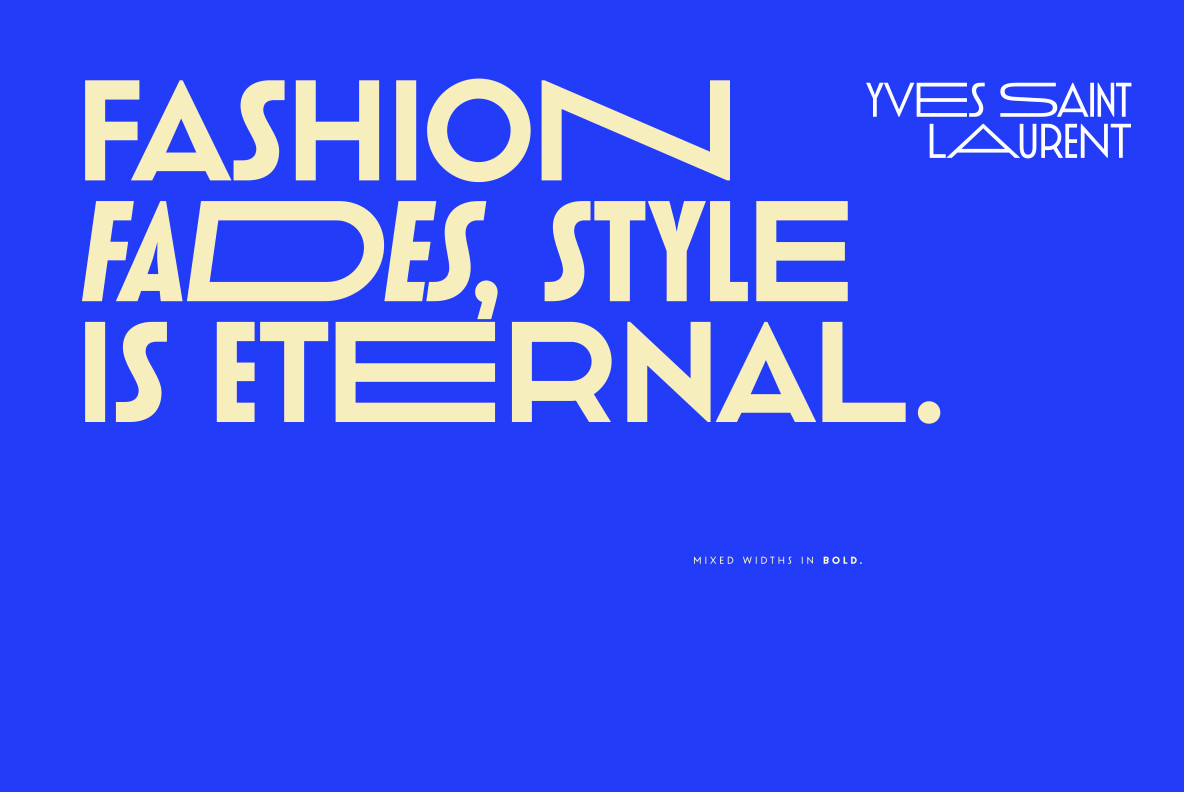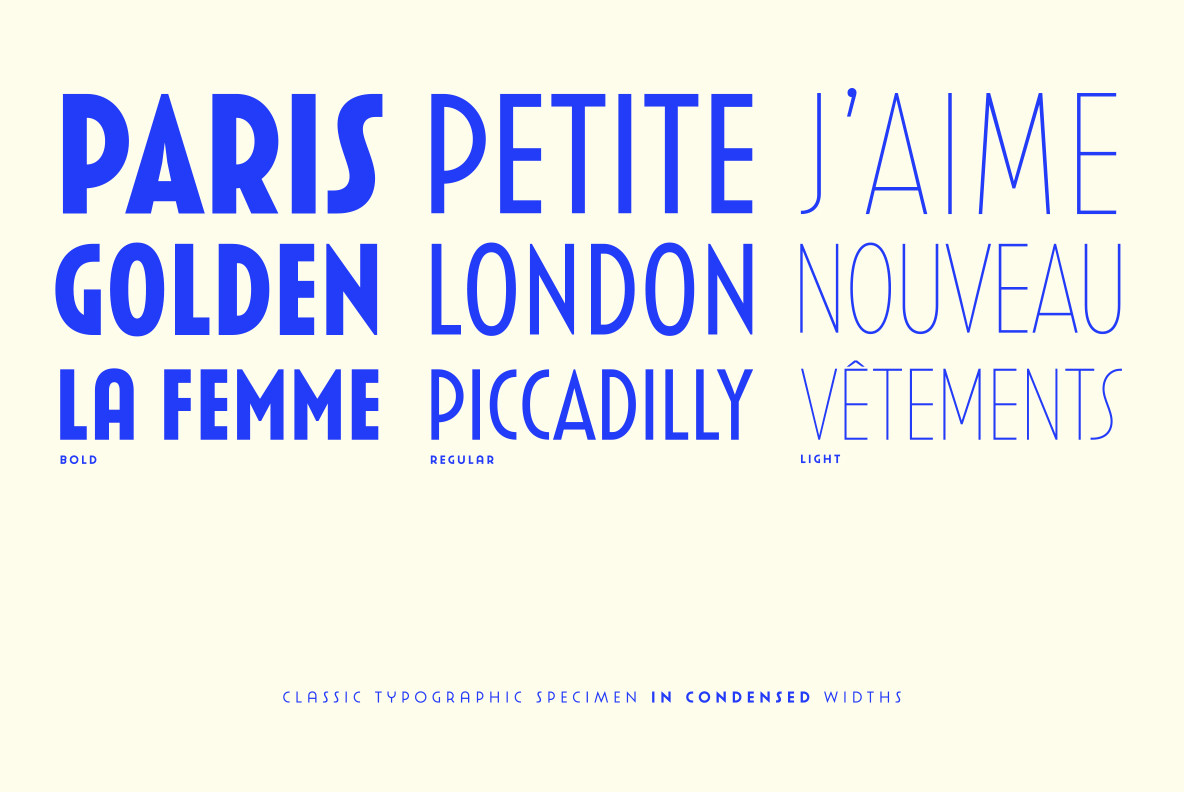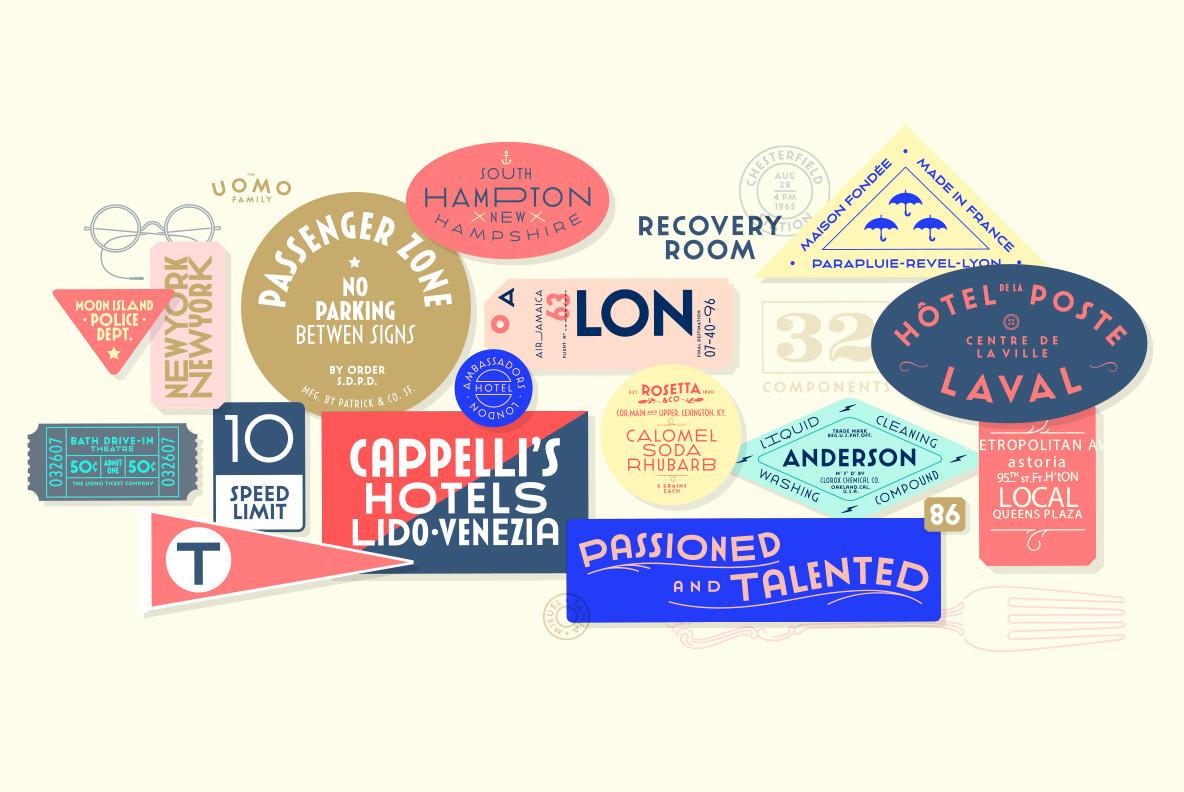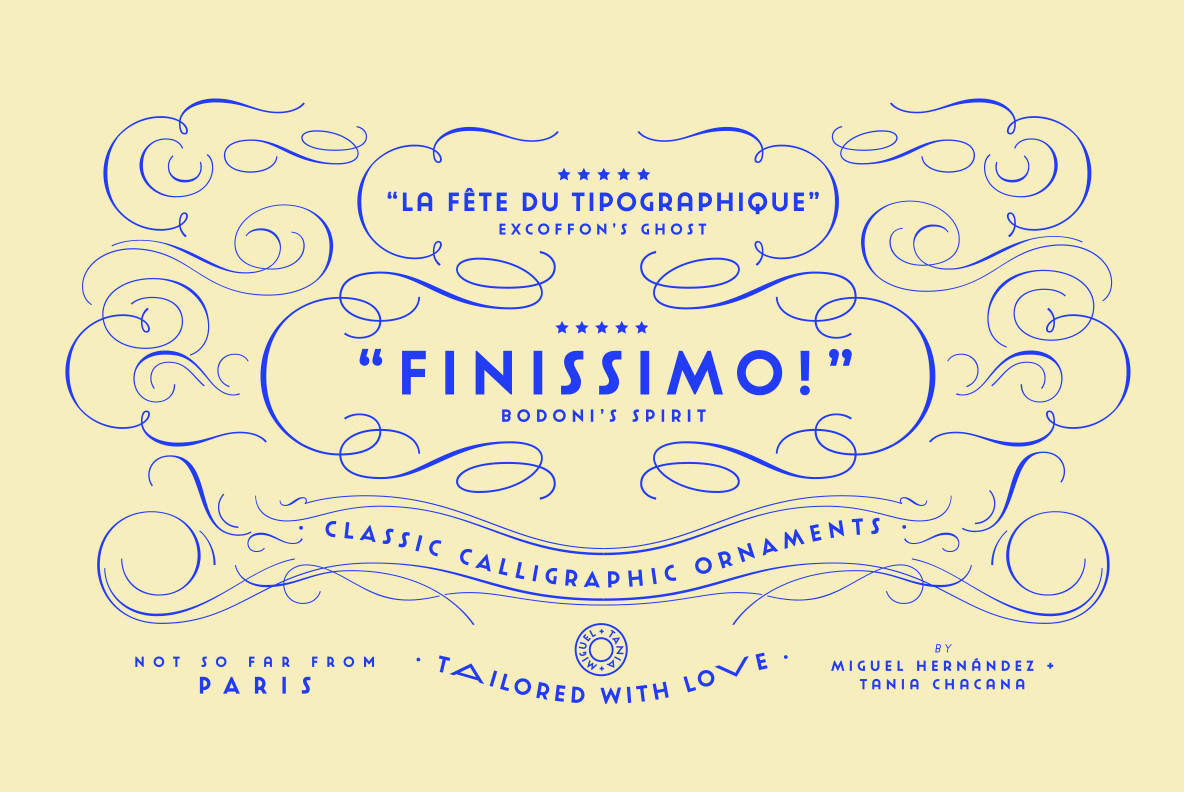
Uomo
Uomo Font Family
Uomo is a contemporary typographic system that explores sans geometric style and italian art deco that allows to combine four widths and three weights. Includes small caps and extras with illustrations, ornaments and words to design with no necesity of external elements. From the refined and classic to the post modern and vernacular in one only family.